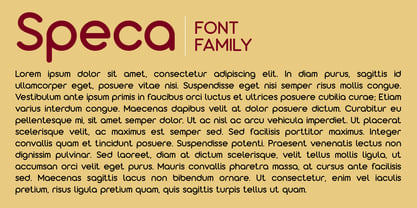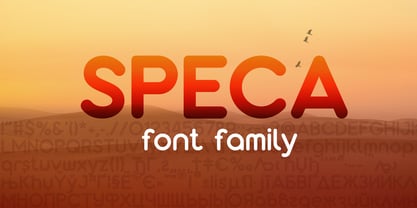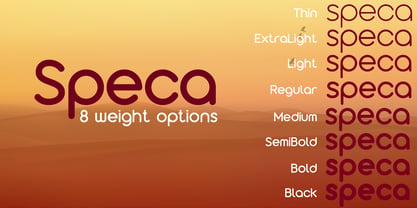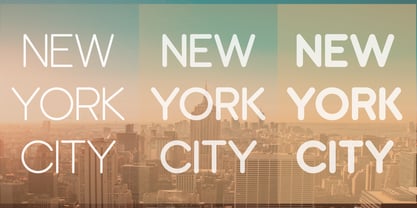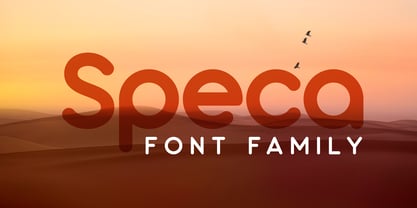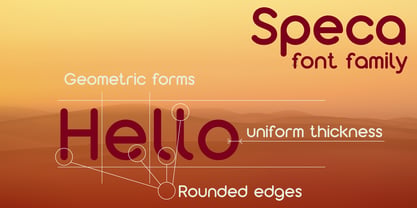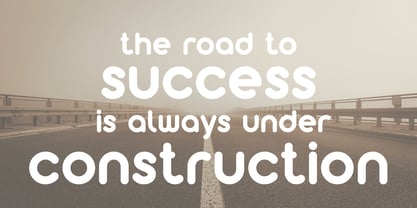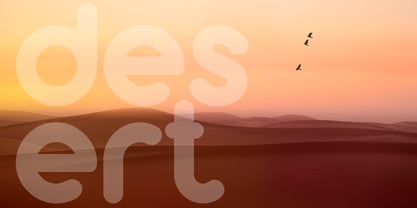
Speca
by VladB
The Speca Font Family was designed by Volodymyr Berla and published by VladB. Speca contains 8 styles and family package options. More about this family
Speca is a modern sans serif geometric font that features both upper and lower case characters, supporting a wide range of scripts including Latin, Cyrillic, Latin Eastern Europe, Turkish, Baltic, and more. The Speca family comprises 8 distinct fonts, organized into 2 subgroups based on style (S, L), with each subgroup offering 4 thickness variations. These versatile fonts are ideal for brand development, poster creation, and various graphic design projects, as well as for word processing applications.